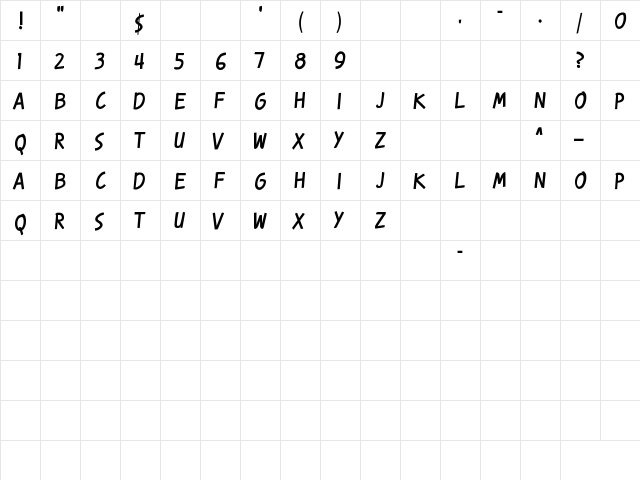
Karmatic Revolution Regular
Design Context for Karmatic Revolution Typeface
Karmatic Revolution is a composed and adaptable typeface that performs quietly and consistently across a wide range of design contexts.